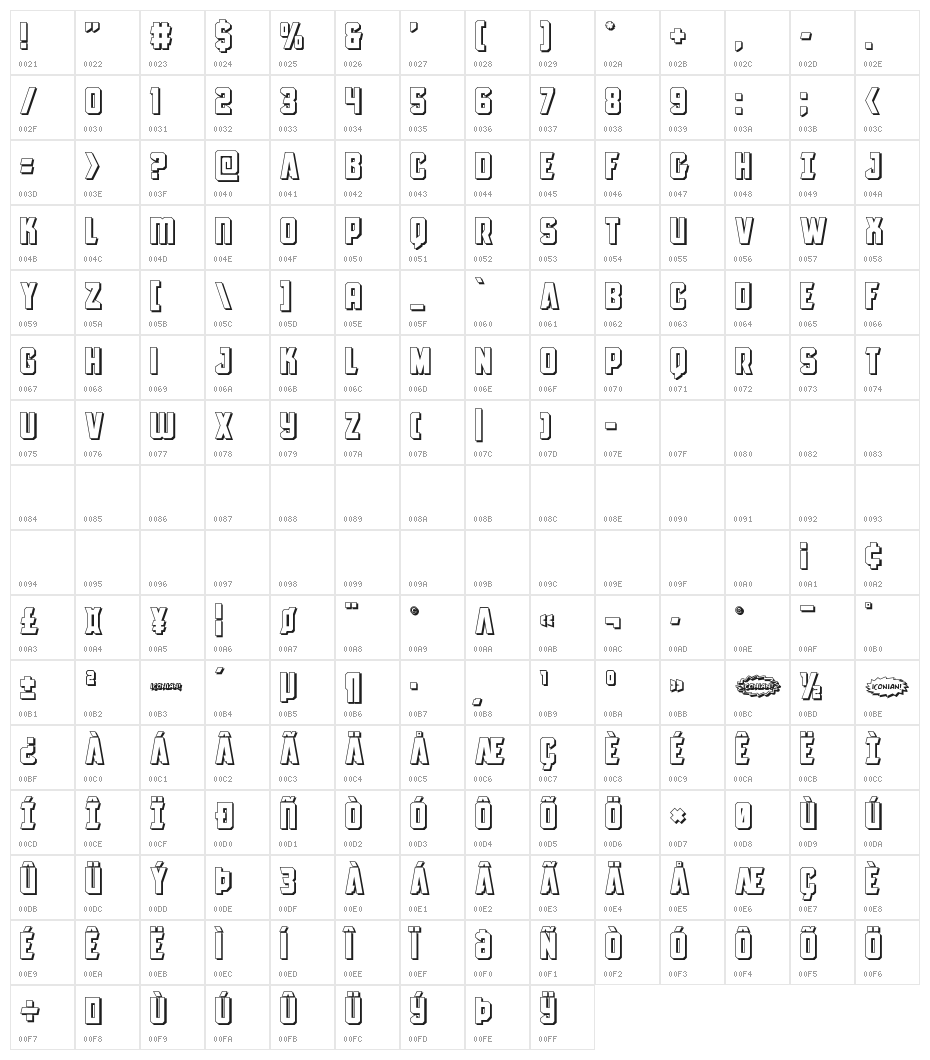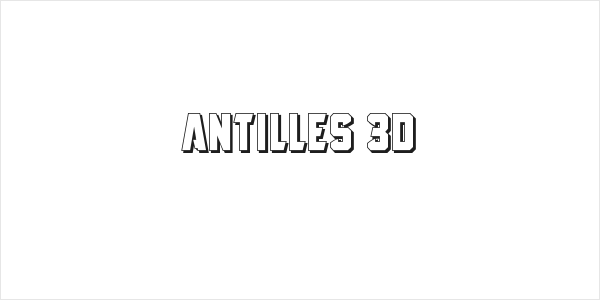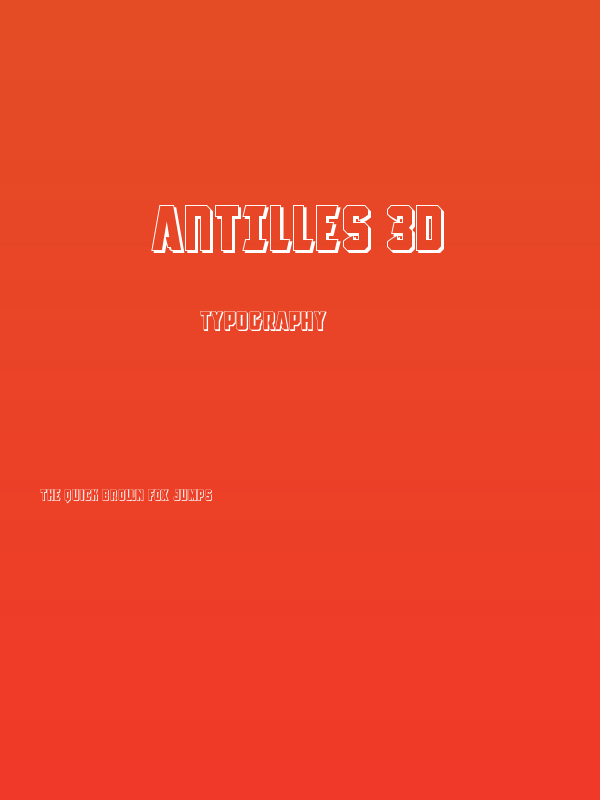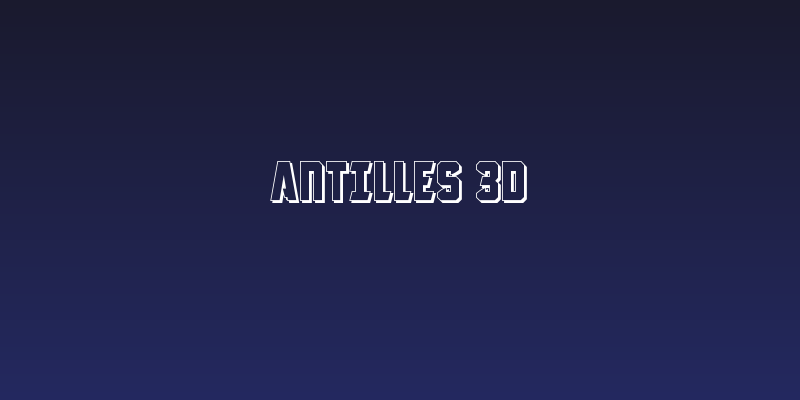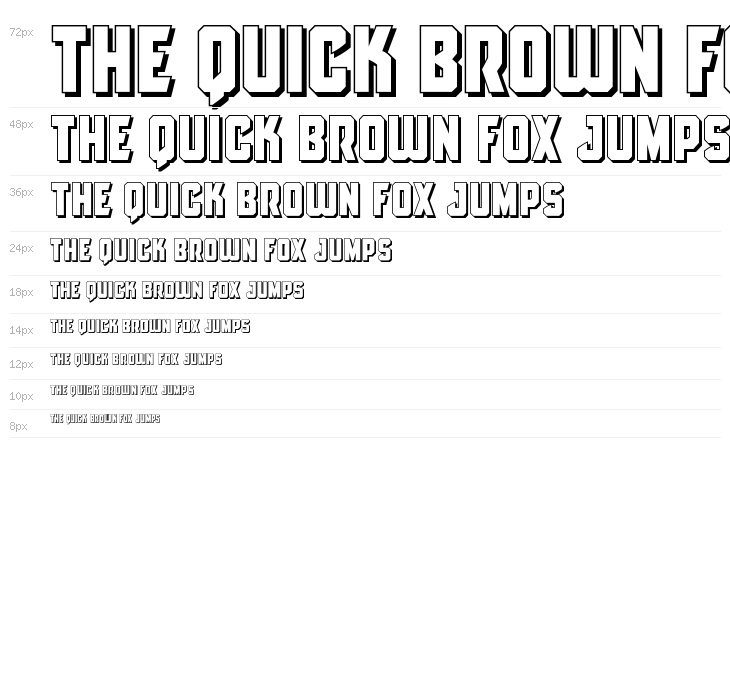
Antilles 3D Font
Antilles 3D Description
This font features a bold, three-dimensional appearance with a strong, shadowed effect that gives each character a sense of depth and solidity. The letters are capitalized and have a blocky, geometric style, which is accentuated by the thick outlines and the shadowing that creates a 3D illusion. The numerals and special characters follow the same design principles, ensuring consistency across all glyphs. This font's distinct and eye-catching style makes it ideal for projects that require a strong visual impact. The boldness and clarity of the characters ensure readability while maintaining a unique aesthetic.
| Proposed Projects | Ideal for posters, headlines, logos, and any design requiring a striking, bold appearance. |